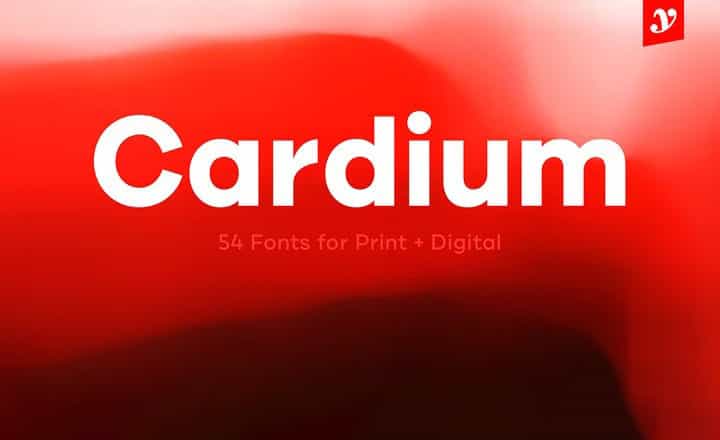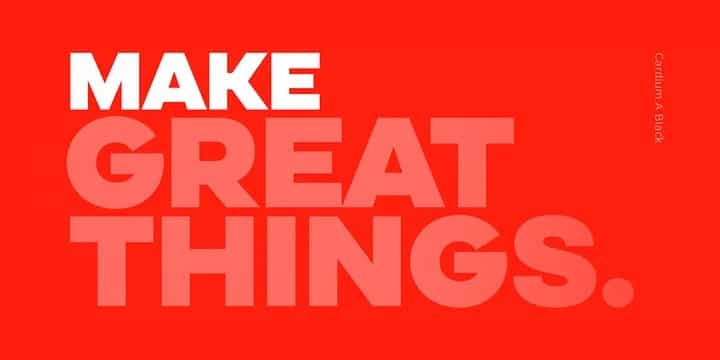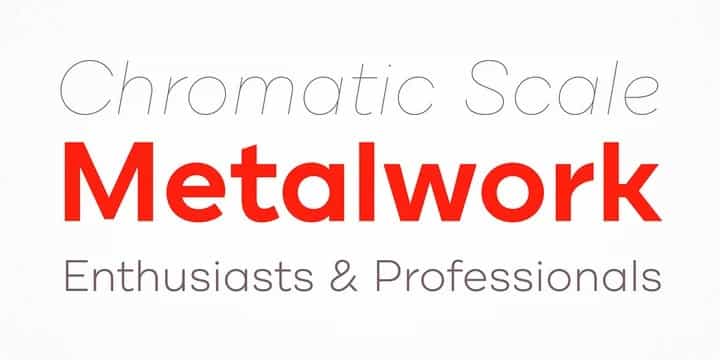
The Cardium is a cool and clean modern geometric sans typeface. It is flexible, clear, readable and somewhat disconcerting – much like Draft – but with a more functional layout. It offers a complete set of typographic professional tools and extensive language support.